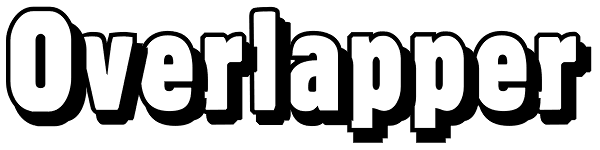
Overlapper
Winner of the "no prizes for guessing" category, Overlapper's main feature is that the letters overlap slightly. I thought it best to just come straight out with it. In case there's someone just recovering from a lobotomy. There's an extended...